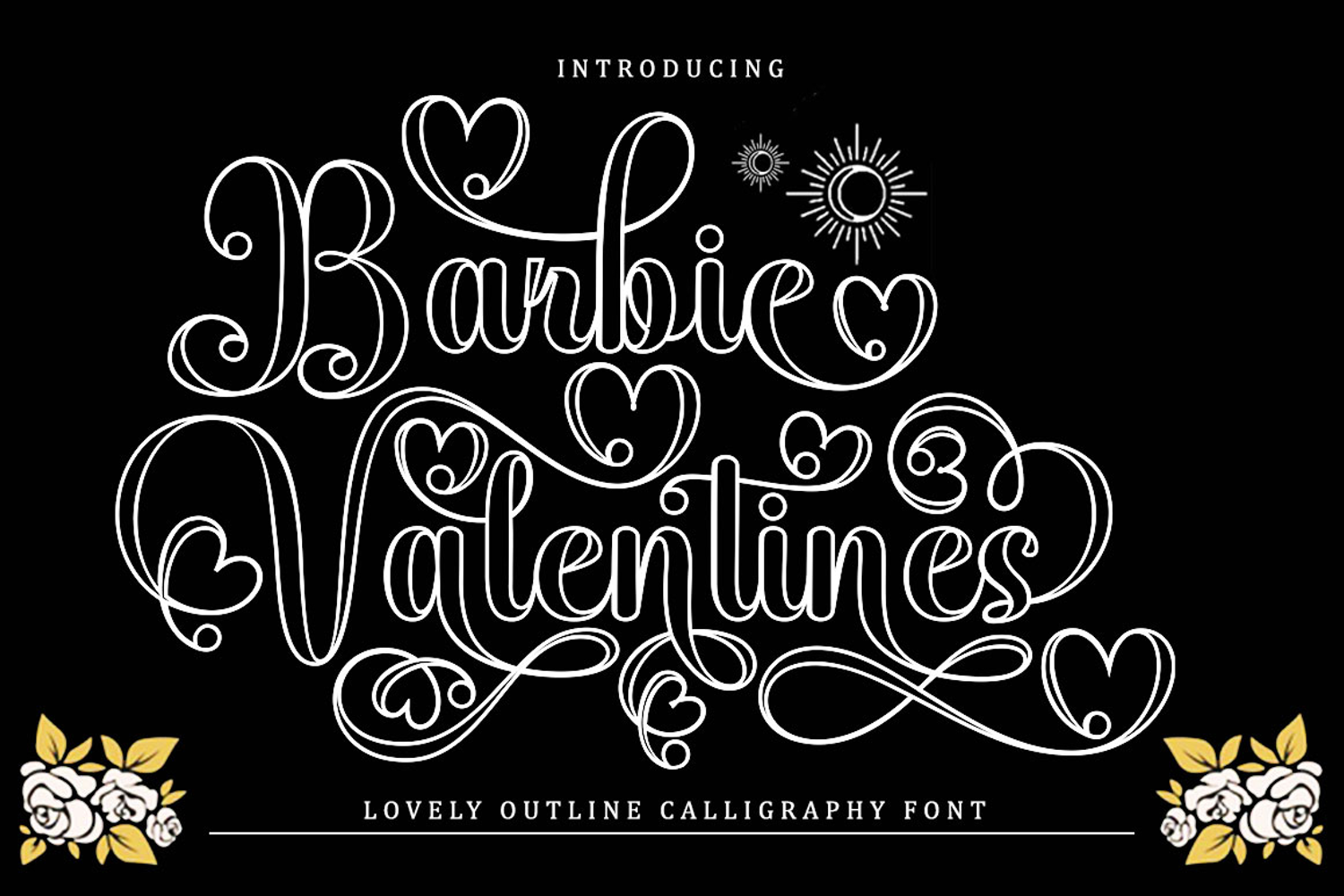
Barbie Valentines Outline
Barbie Valentines utline is an elegant script font featuring beautiful character variations. It combines classic copper style with a modern touch, designed with great attention to detail for an elegant look. This font is visually appealing, clean, feminine and easy to read, thanks to its luxurious letter connections. Its classic style is perfect for a variety of formal uses, including invitations, labels, restaurant menus, logos, fashion, makeup, stationery, novels, magazines, books, greeting and wedding cards, packaging and all types of advertising.